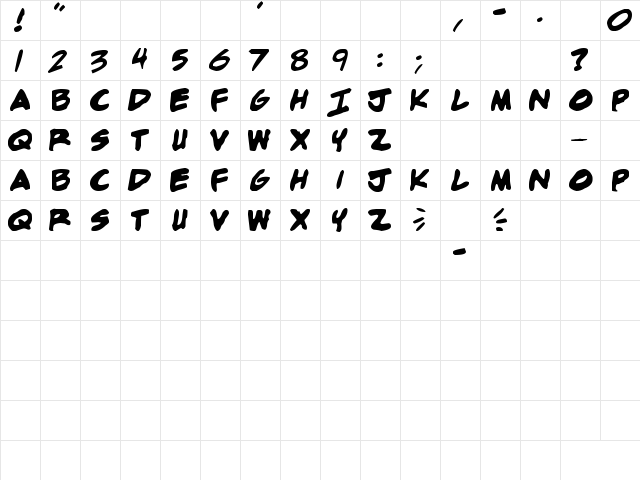
adam warren 0.2 Bold Font Preview
adam warren 0.2 Bold
adam warren 0.2 Bold Font Details
Design Context for adam warren 0.2 Typeface
adam warren 0.2 is a composed and adaptable typeface that performs quietly and consistently across a wide range of design contexts. The heavy weight commands attention and anchors typographic hierarchies.